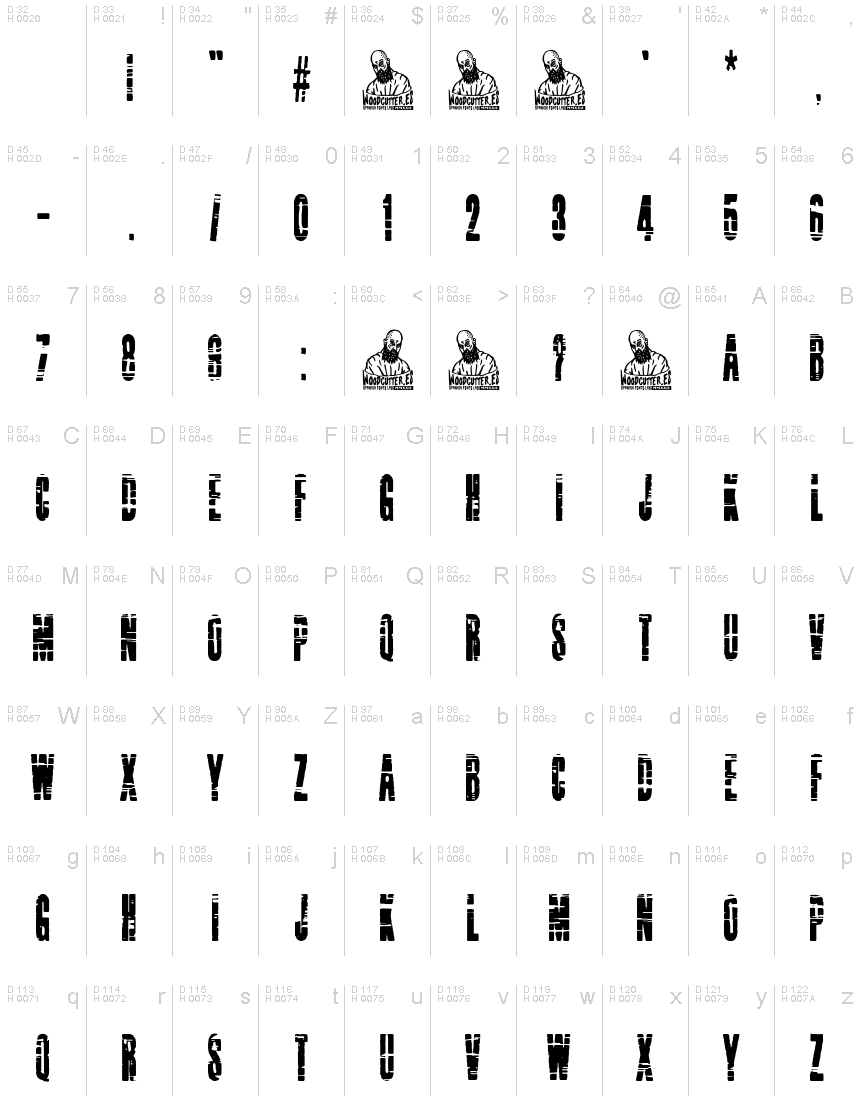
Super Glitch Press
Super Glitch Press, designed by Woodcutter, is a captivating display font that embraces the allure of the digital age. With its bold, condensed strokes and delightfully distorted aesthetic, this font exudes a sense of raw, edgy energy that commands attention. The striking glitch-inspired elements infuse the characters with a striking, contemporary flair, making it a versatile choice for a wide range of design applications.
The unconventional nature of Super Glitch Press lends itself seamlessly to projects that seek to make a bold, unforgettable impression. Its unique style can elevate eye-catching headlines, impactful branding, and avant-garde designs, evoking a sense of technological disruption and digital disruption. Whether crafting visually stunning posters, album covers, or packaging, this font's unapologetic presence is sure to captivate and engage audiences.